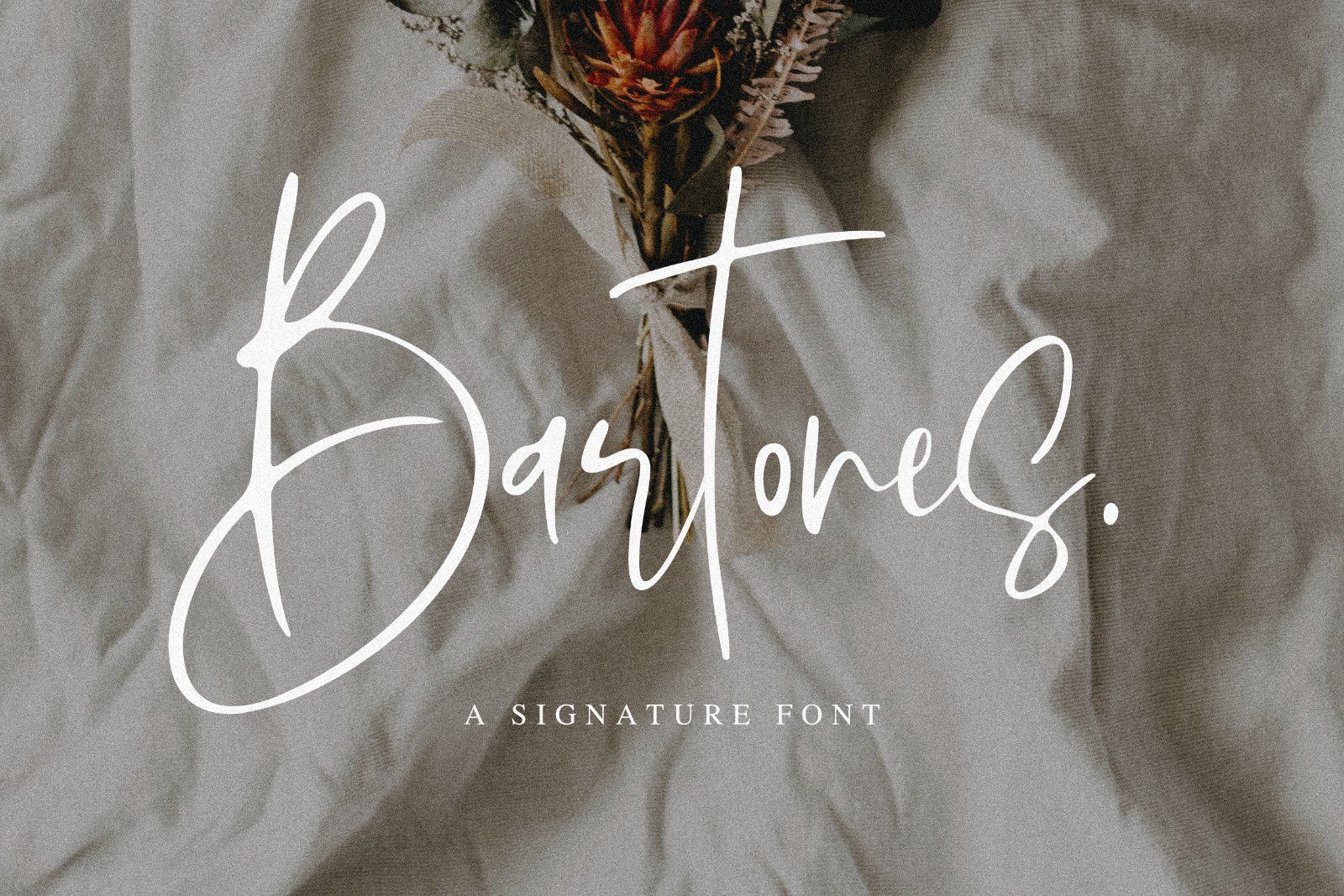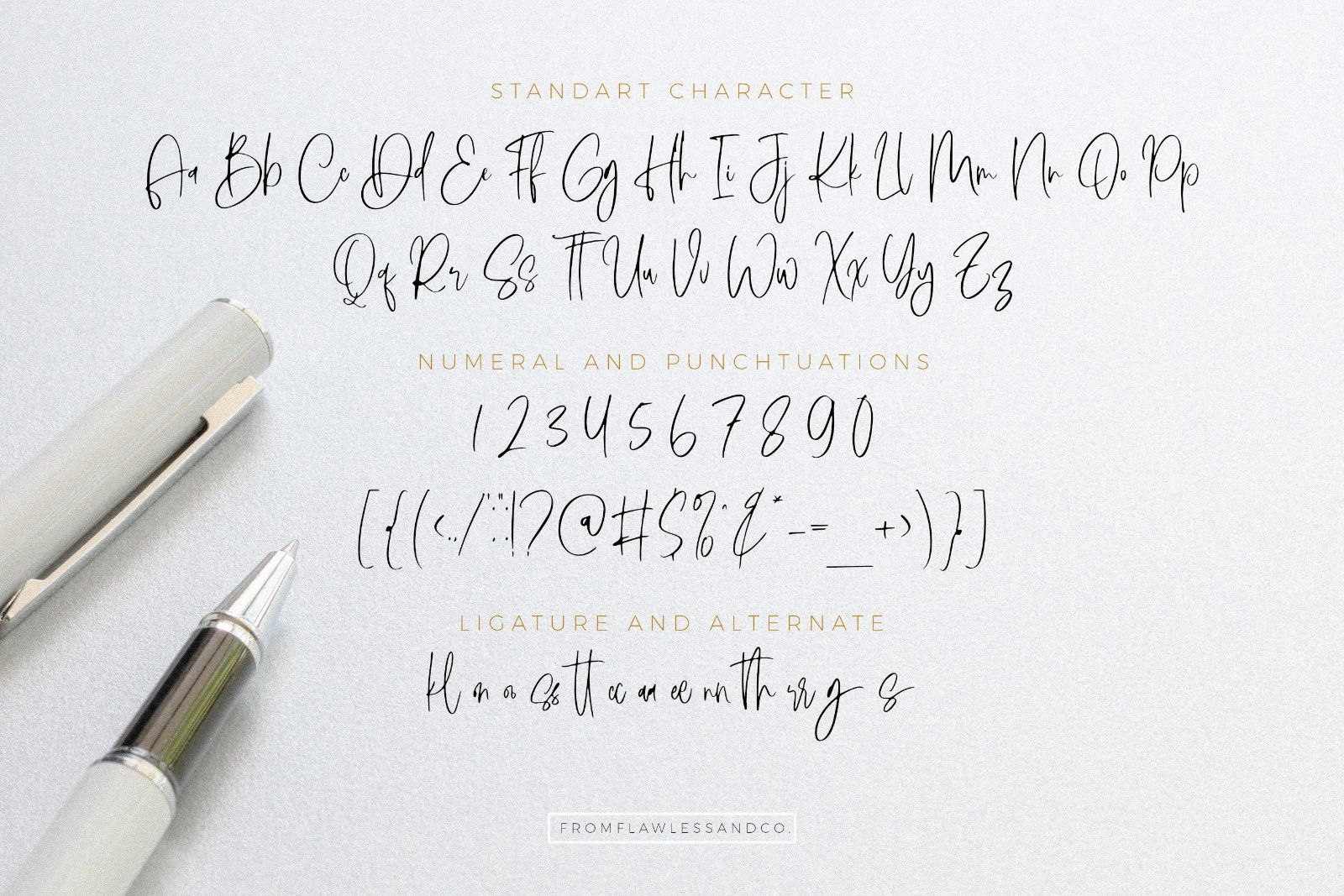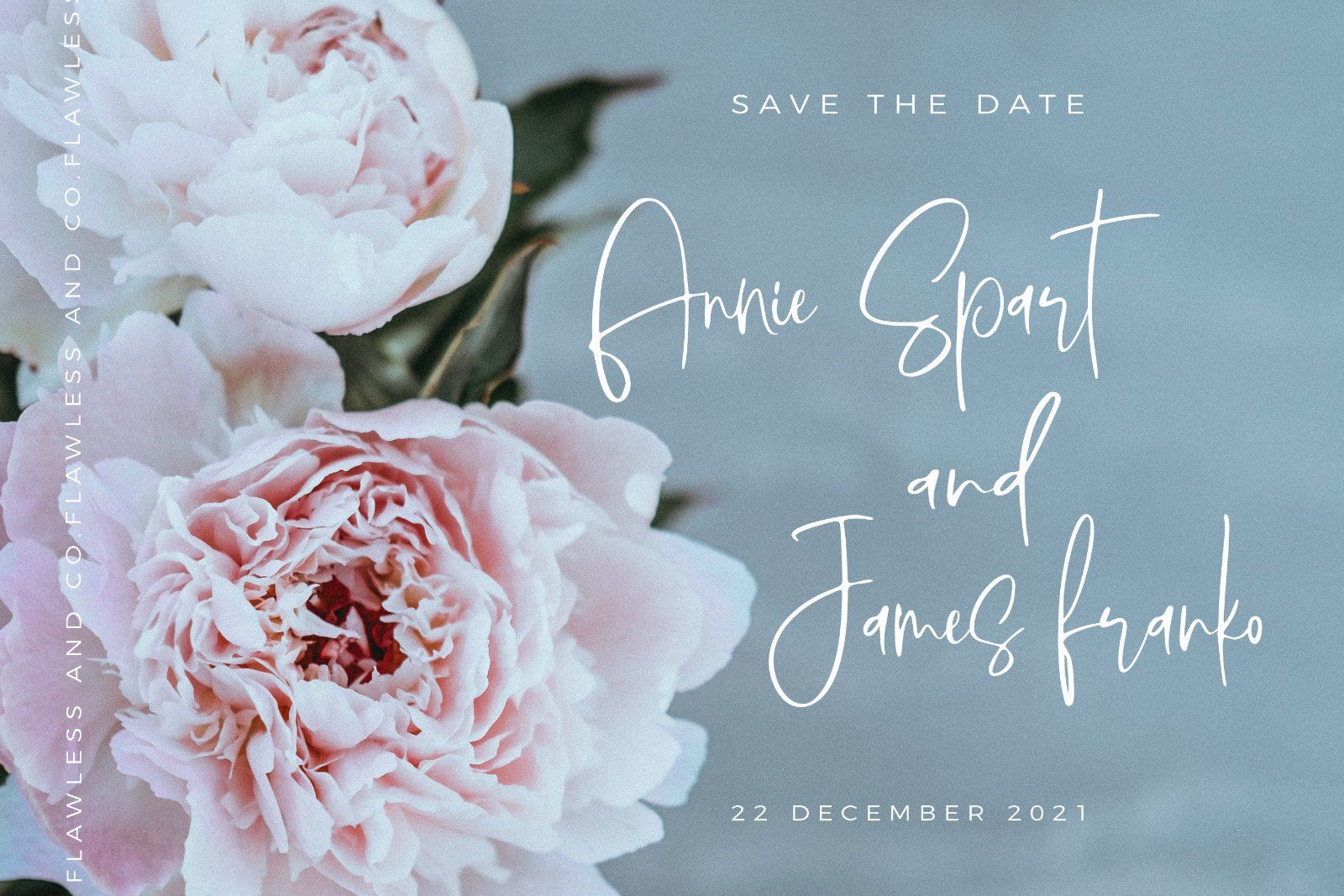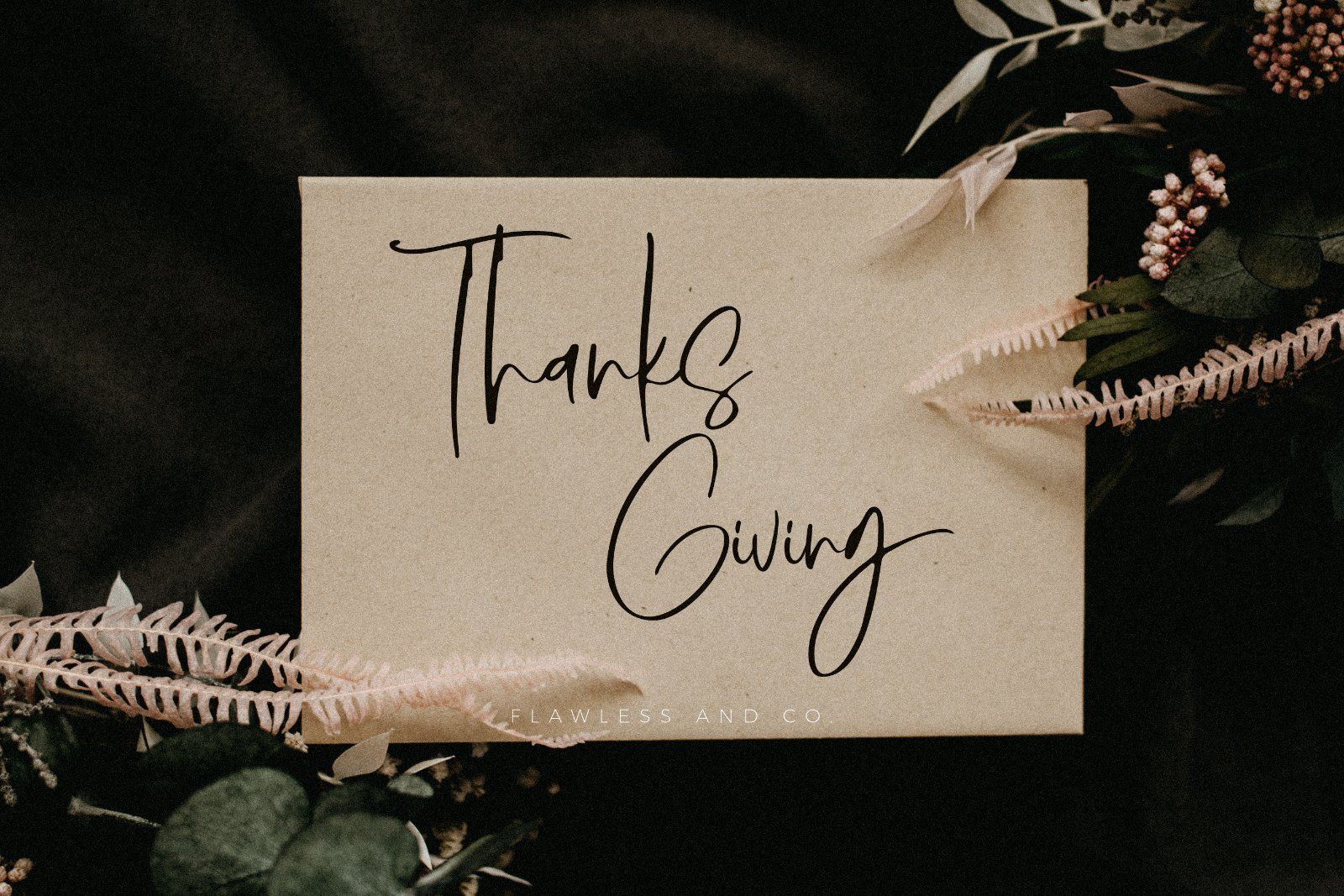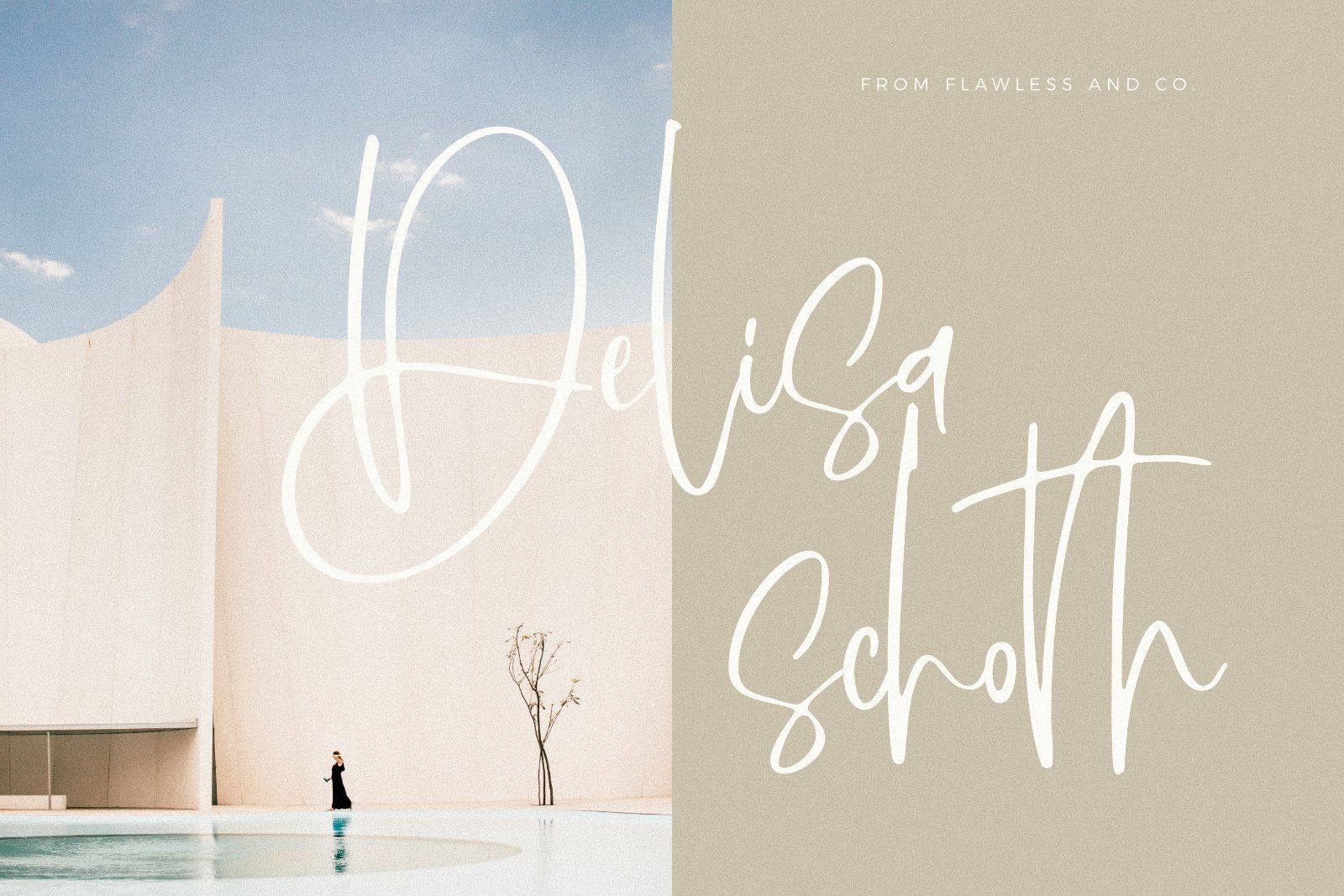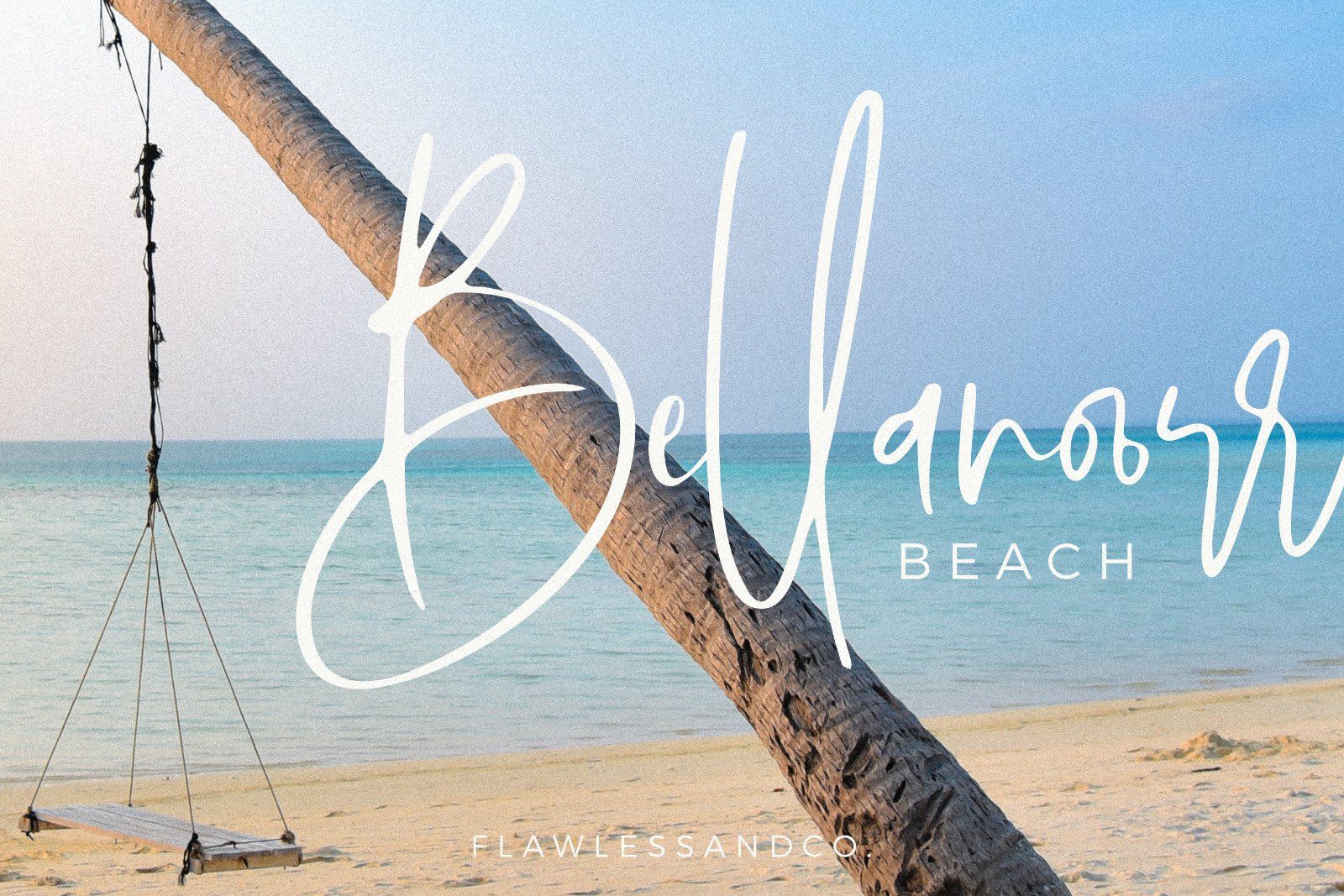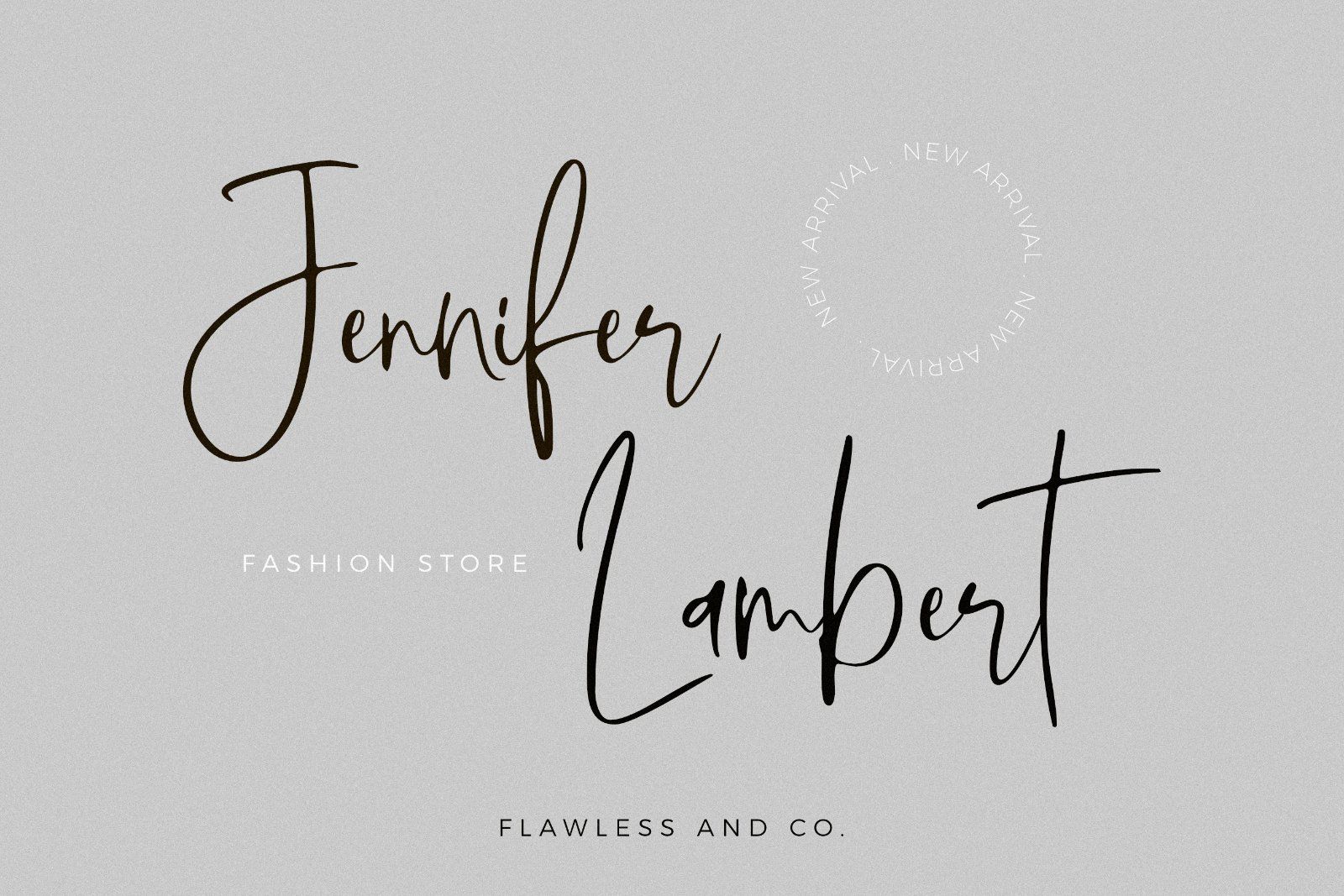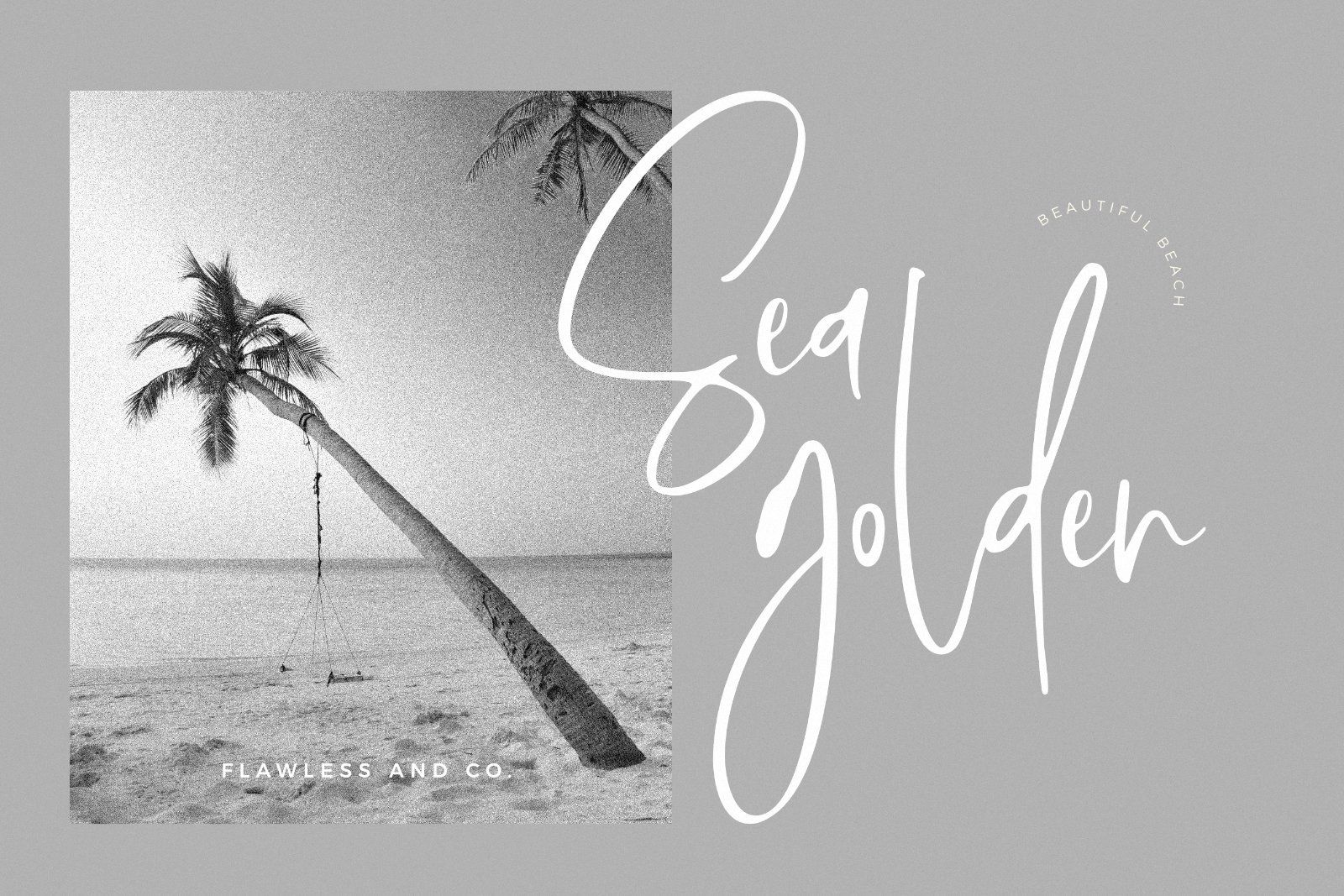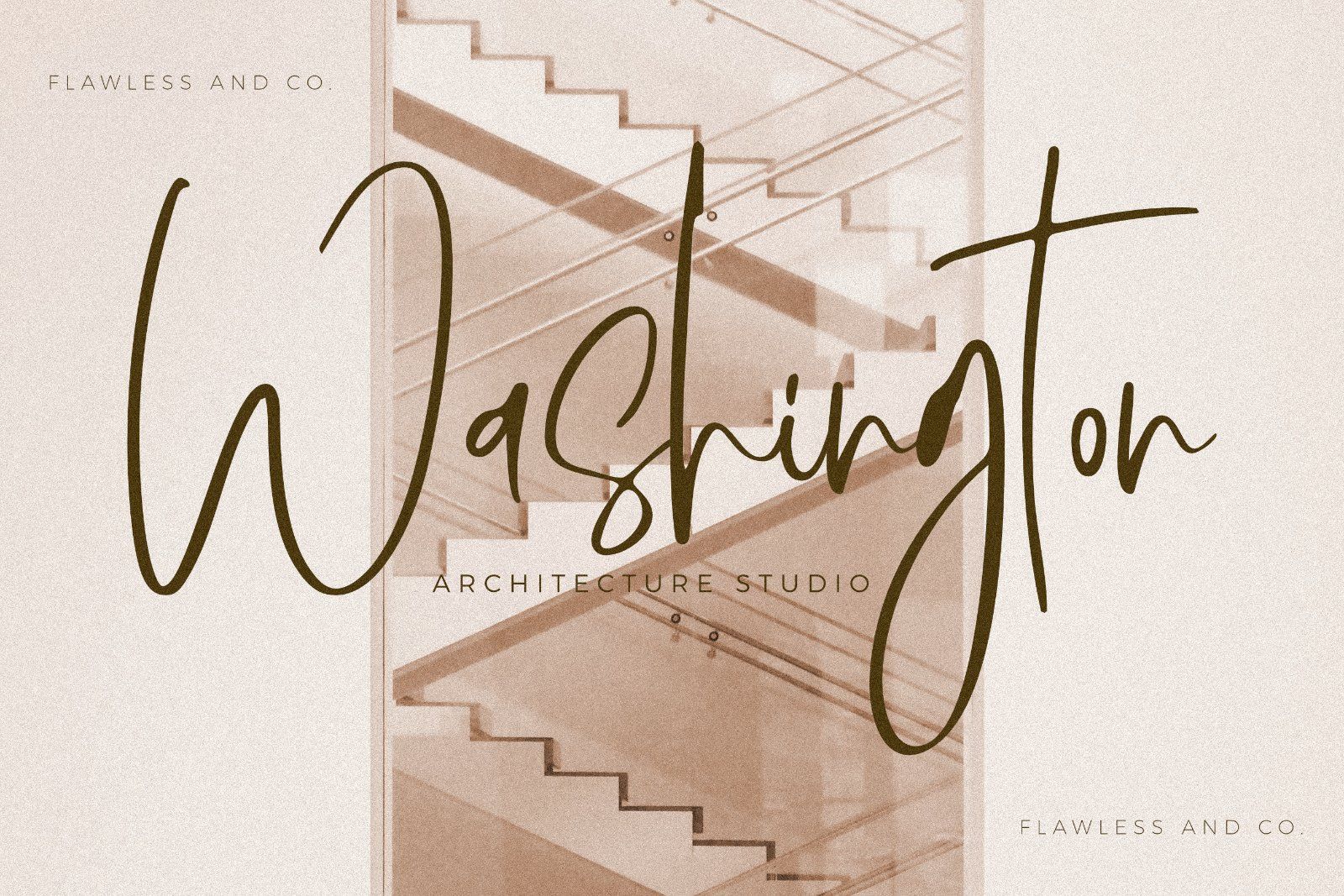
Bartones is an elegant signature font that captures the natural beauty of handwritten lettering with a stylish and expressive character. Featuring smooth flowing strokes, graceful curves, and distinctive extended flourishes, Bartones creates an authentic signature look while maintaining a refined and contemporary feel. Its organic letterforms give every word a personal touch, making it perfect for designs that call for sophistication, creativity, and effortless elegance.
• Uppercase alphabet A-Z
• Lowercase alphabet a-z
• Alternate Character
• Numbers 0-9
• Some punctuation